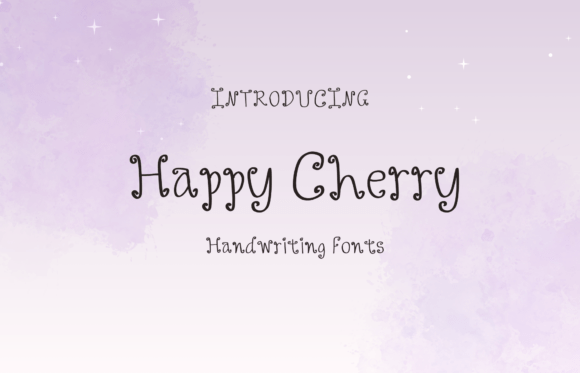
Adding a Pop of Personality to Your Designs
Have you ever been brainstorming a project and suddenly, a spark of inspiration hits you? The ideas start flowing, and you can’t wait to bring your vision to life. For designers, moments like these are what make our job so exciting. But sometimes, all it takes is the right font to take our creations to the next level.
Enter the Happy Cherry Font, a sweet and friendly handwritten display font that’s perfect for adding a fun touch to your designs. Whether you’re crafting a wedding invitation, creating a comic book style graphic, or designing a love shirt, this font is sure to bring a smile to your audience’s face. Its versatility makes it a valuable addition to any designer’s toolkit, and its cute and playful vibe is sure to make your projects stand out.
Happy Cherry Font Key Features
- Font Family: Happy Cherry
- Font Style: Script, Handwritten
- Unique Characteristics: Hand-drawn, cursive, and playful design, ideal for creative and whimsical projects
Happy Cherry Font Review
Overall, I found Happy Cherry Font to be a visually appealing and fun typeface. The designer has successfully captured the essence of a happy and playful font, making it perfect for projects that require a cheerful vibe. ✨
- The font’s rounded edges and soft curves create a friendly and approachable feel.
- The letterforms are well-designed and easy to read, making it suitable for body text.
- The font’s color palette is vibrant and can be used to create a wide range of color schemes.
However, there are some limitations to consider. The font’s playful nature may not be suitable for all projects, and it may not be the best choice for formal or professional applications. Additionally, the font’s irregularities may make it difficult to use at small font sizes. ⚠️
Happy Cherry Font is a great addition to any designer’s toolkit, especially for projects that require a fun and playful touch. While it may not be the best choice for all projects, it’s definitely worth considering for projects that need a cheerful and approachable vibe.
Tips for Getting the Most Out of Happy Cherry Font
Use the Happy Cherry font to add a playful touch to your designs.
Pair it with bold colors and whimsical graphics for a fun and lively look.
The Happy Cherry font is perfect for:
Children’s party invitations and decorations.
Food and beverage branding.
Playful social media graphics and ads.
Alternatives to Happy Cherry Font
Great Vibes is a beautiful, handwritten font perfect for creating a carefree and playful atmosphere. It’s ideal for use in titles, headings, and quotes where a touch of elegance is required.
Compared to Happy Cherry Font, Great Vibes has a more elegant and refined feel, making it suitable for a wider range of design projects.
Carolyna Pro is a modern, sans-serif font that exudes sophistication and elegance. It’s perfect for use in titles, headings, and body text where a clean and professional look is required.
Unlike Happy Cherry Font, Carolyna Pro has a more minimalist and modern feel, making it ideal for use in corporate branding, editorial design, and other professional projects.
Alex Brush is a beautiful, handwritten font that’s perfect for creating a warm and inviting atmosphere. It’s ideal for use in titles, headings, and quotes where a touch of personality is required.
Compared to Happy Cherry Font, Alex Brush has a more rustic and vintage feel, making it suitable for use in design projects that require a touch of nostalgia.
Pacifico is a beautiful, serif font that exudes a sense of relaxation and tranquility. It’s perfect for use in titles, headings, and body text where a calming and soothing atmosphere is required.
Unlike Happy Cherry Font, Pacifico has a more relaxed and casual feel, making it ideal for use in design projects that require a touch of serenity, such as wellness and travel branding.
Happy Cherry Font Project Ideas
Create a colorful and inviting menu board for a bakery or café using the Happy Cherry Font. This font is perfect for adding a touch of playfulness and fun to your menu.